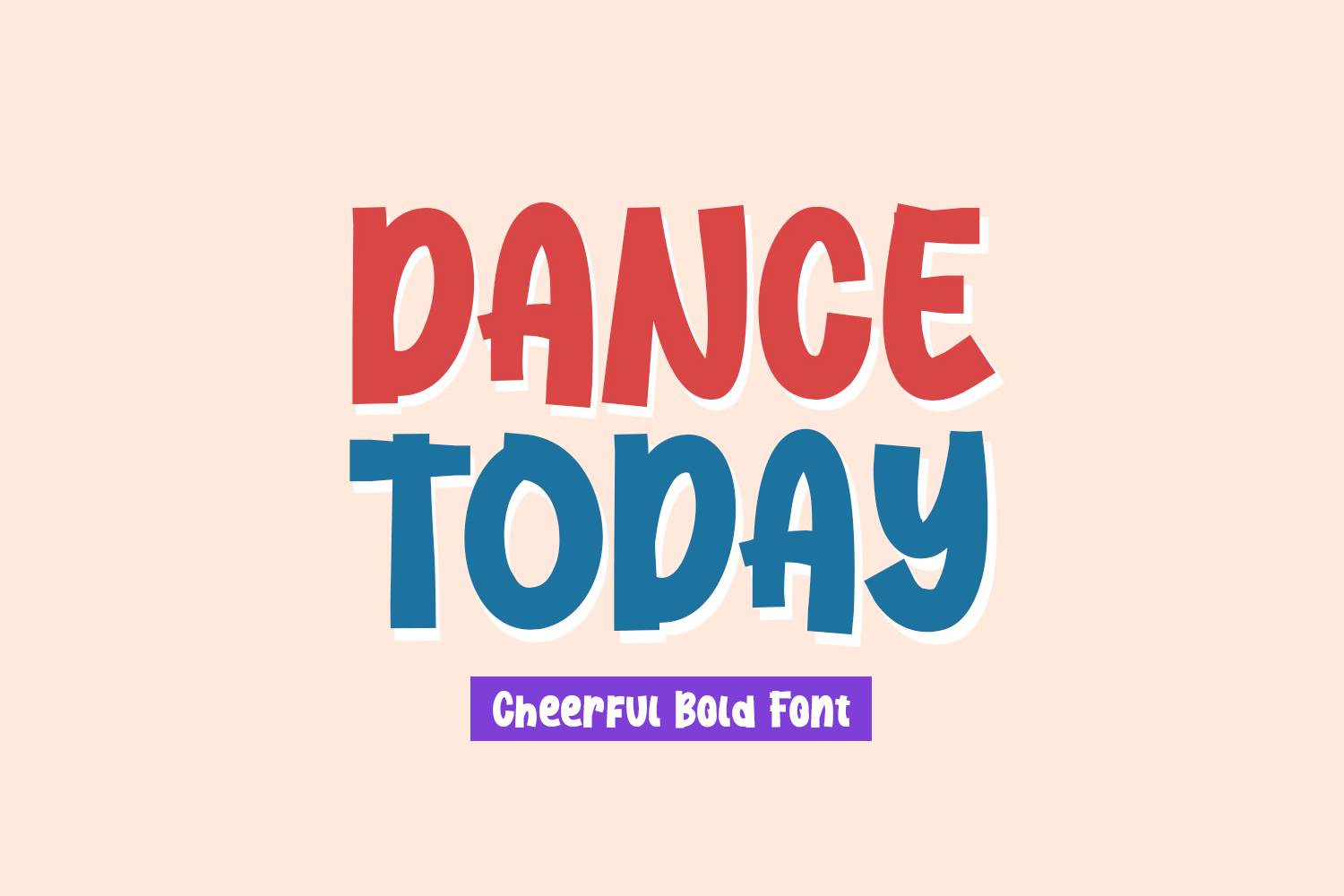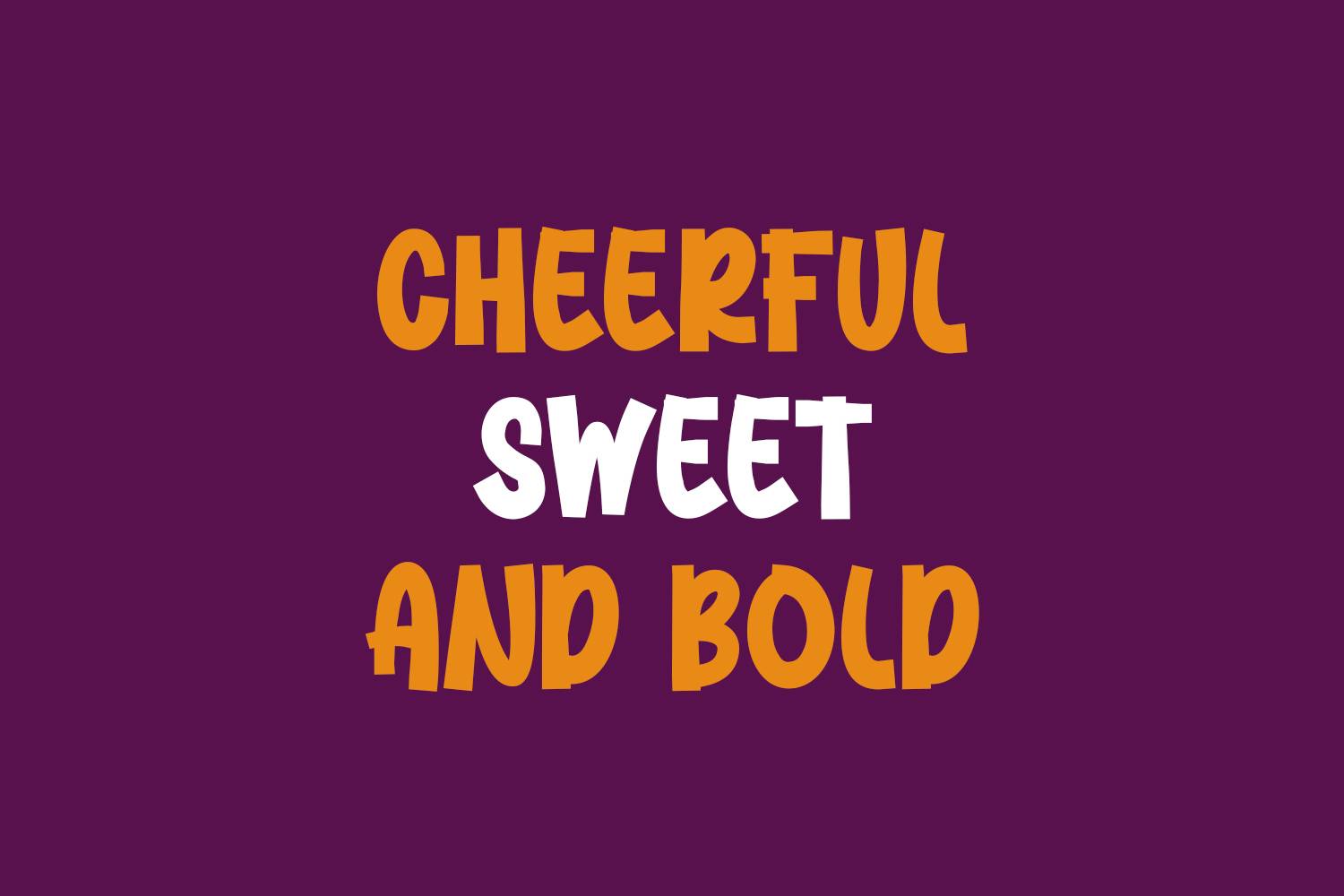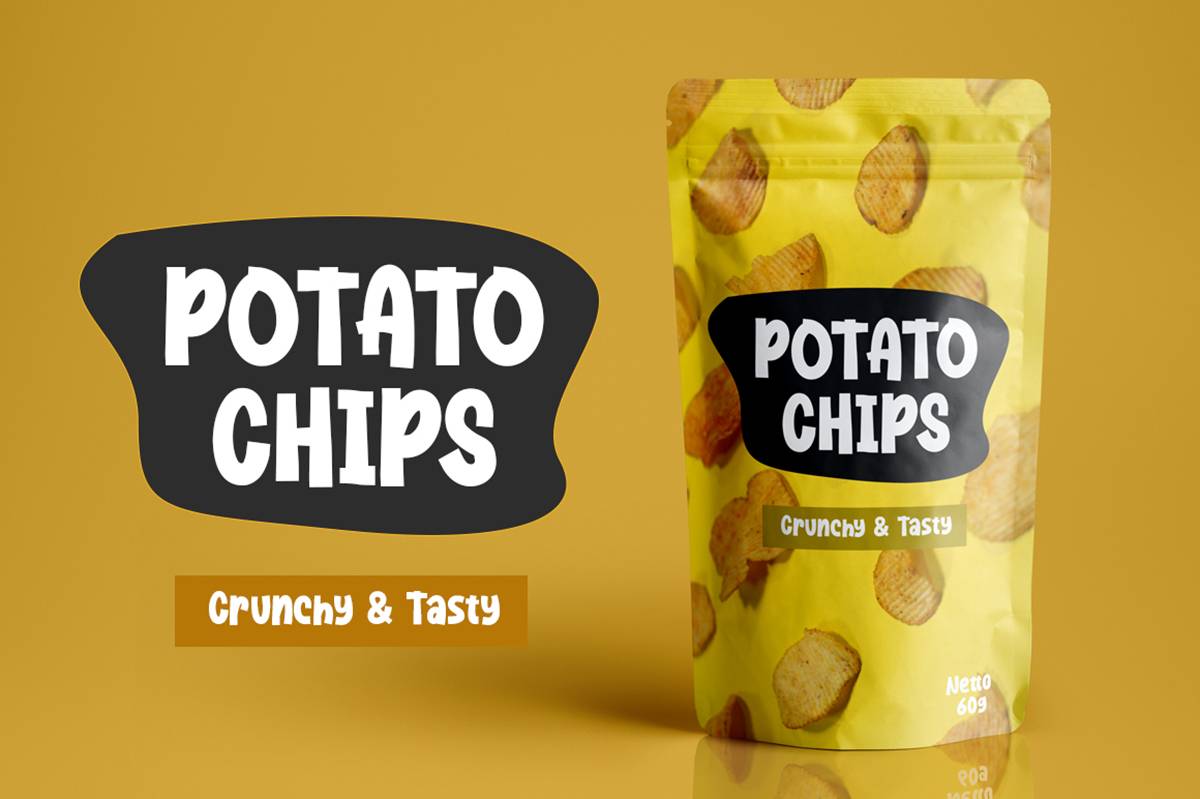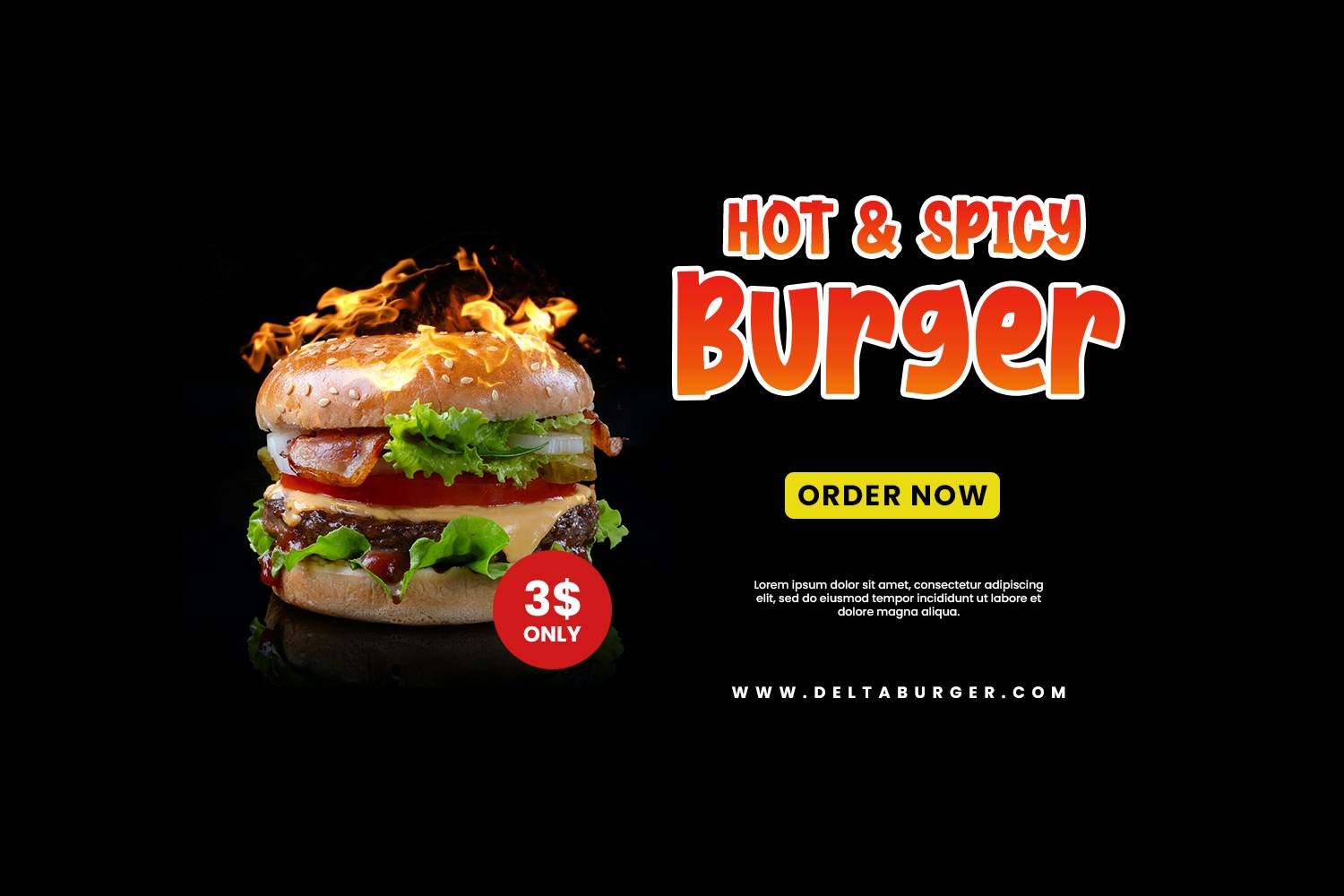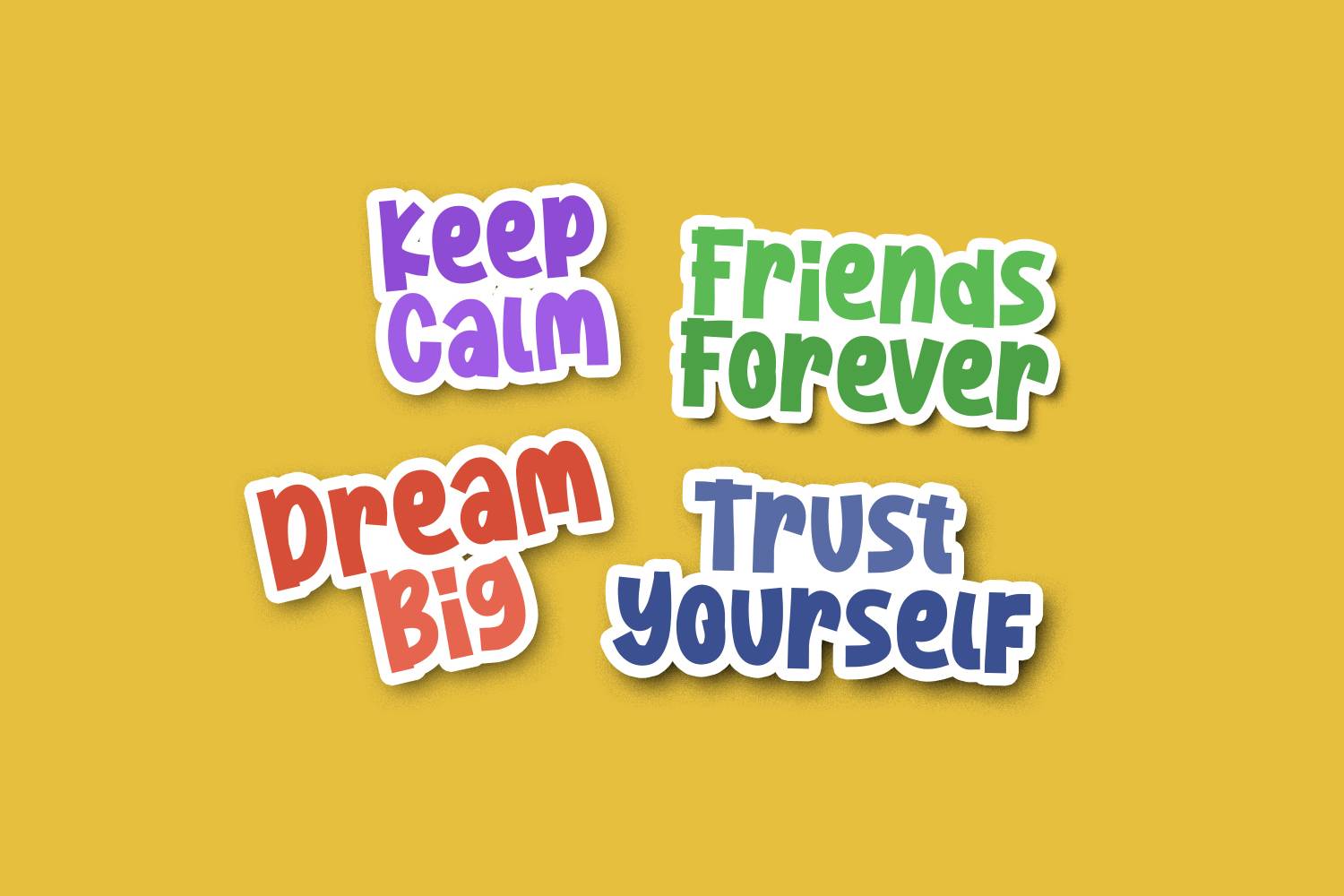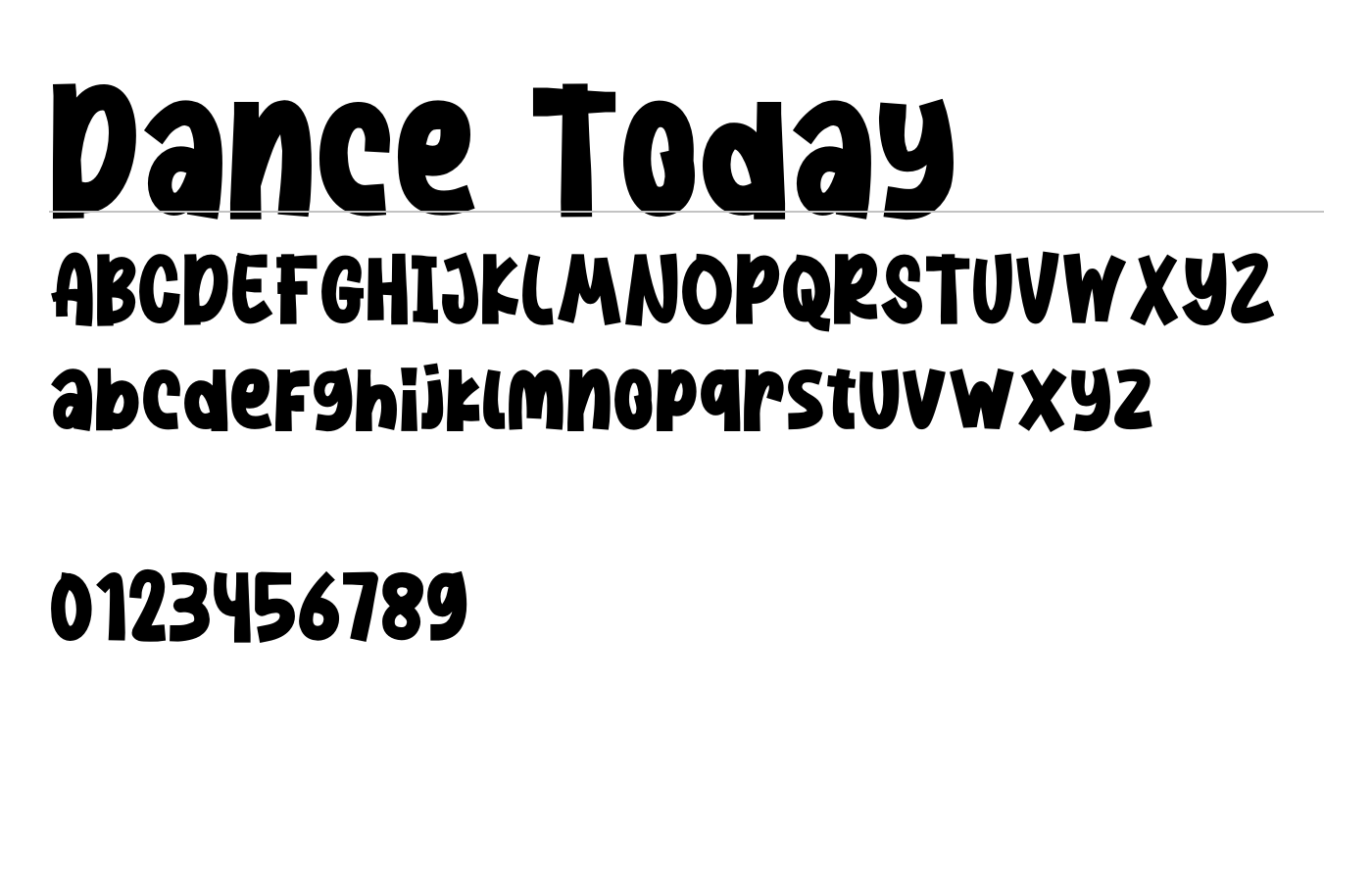
Dance Today is a bold, playful sans serif font with a quirky, hand-drawn feel that makes it perfect for informal and fun designs. Its chunky, irregular letterforms and lively personality work well for eye-catching headlines, children’s projects, or creative branding that aims to convey energy and friendliness. This font adds a unique, cheerful vibe to any design, making it great for posters, logos, and casual editorial uses.
Dance Today Font
About Dance Today Font
| Font family | Dance Today Font |